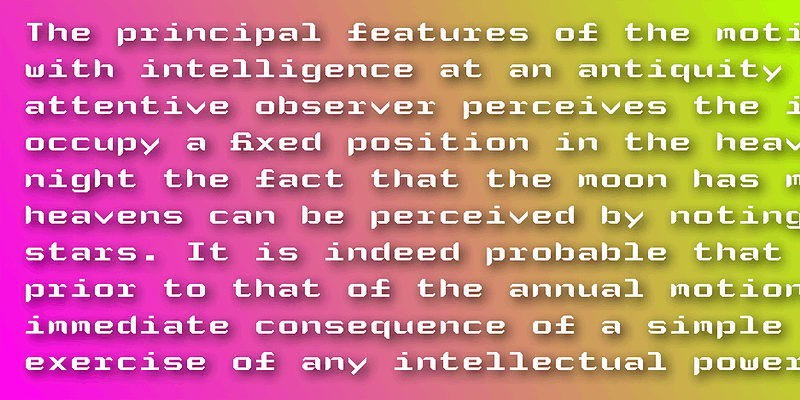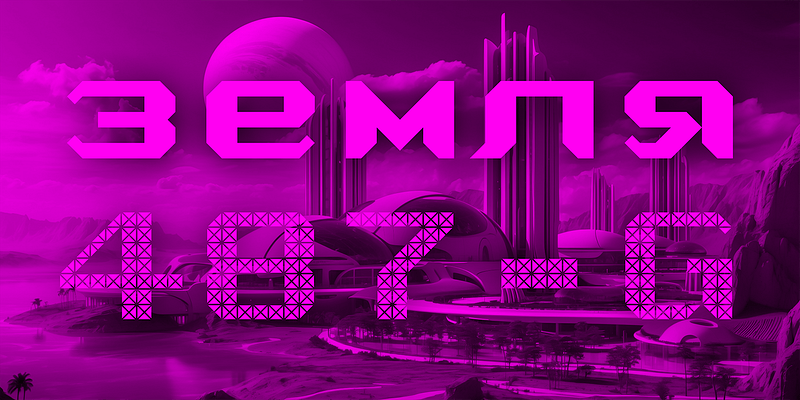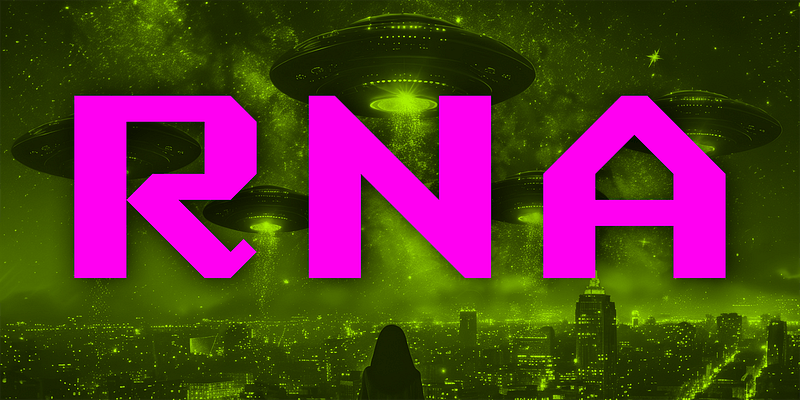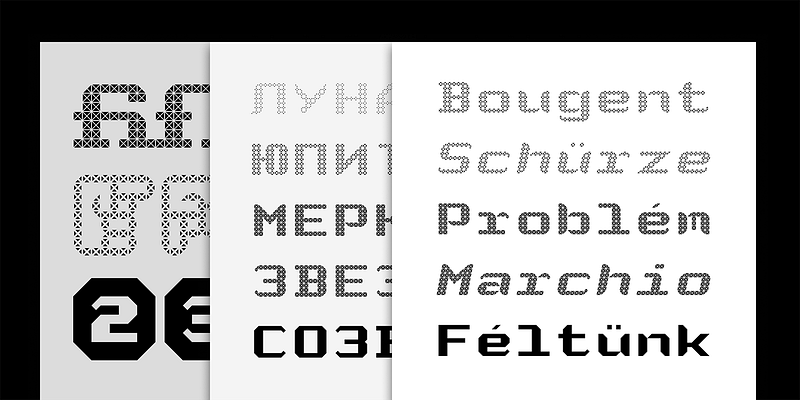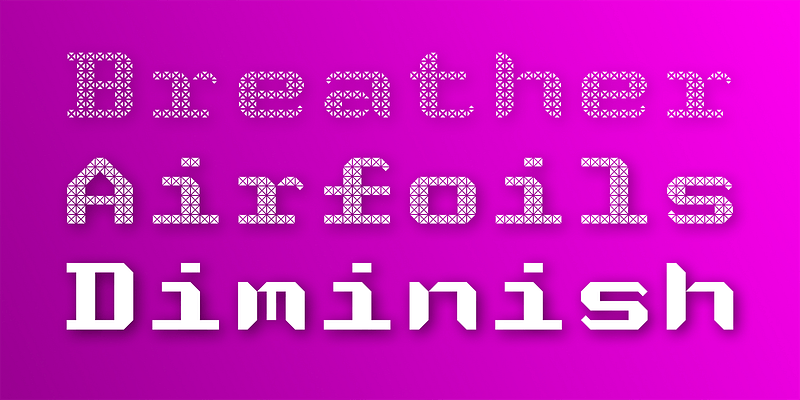
Archive is a geometric, monospaced typeface that reflects the experimental spirit of early digital typography. Originally designed in the early 2000s, it is built on a precise, grid-driven structure where each character occupies a consistent width, creating a steady, mechanical rhythm across lines of text. Its forms are clean and reductive, favoring clarity and construction over ornament, with a logic that feels both systematic and forward-looking. This disciplined framework gives Archive a distinctly technological tone—calm, controlled, and quietly futuristic. At the same time, its simplicity allows subtle details in proportion and spacing to emerge, adding texture within its rigid system. As the foundation for later developments like Archive Matrix, Archive stands as a foundational exploration of digital-era typography, bridging early computational aesthetics with contemporary design sensibilities.